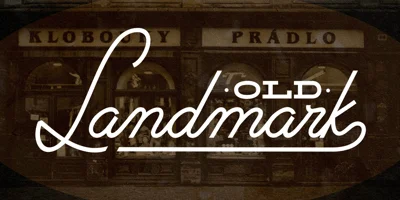
Old Landmark Font
The Old Landmark Font is excellent for heritage tourism materials, historical museum exhibitions, vintage wine labels, traditional restaurant branding, antique shop signage, historical society publications, classic hotel materials, and architectural preservation projects. This distinguished typeface works beautifully in applications where historical authenticity and timeless elegance are essential, making it perfect for organizations that want to honor tradition while maintaining sophisticated visual appeal.
What makes Old Landmark Font exciting is its authentic period character and masterful recreation of classic typographic traditions that instantly transports viewers to bygone eras. The font's carefully researched historical details and traditional letterforms create an atmosphere of established heritage and enduring quality, making it ideal for brands that want to communicate deep roots, proven reliability, and respect for craftsmanship traditions. Its noble character design reflects centuries of typographic refinement and cultural significance.
The Old Landmark Font family typically includes regular, bold, and ornamental weights, often featuring decorative capitals, historical ligatures, and period-appropriate symbols that enhance its authentic appeal. Many versions include vintage ornaments, traditional flourishes, and specialized characters that provide designers with comprehensive tools for creating historically accurate and visually compelling heritage-focused design projects.
For designers working on projects that require historical credibility and traditional sophistication, Old Landmark Font offers exceptional authenticity. Its ability to instantly communicate heritage and established quality makes it an invaluable choice for museums, historical organizations, and any project requiring typography that embodies the dignity, craftsmanship, and enduring appeal of classical design traditions and cultural landmarks.